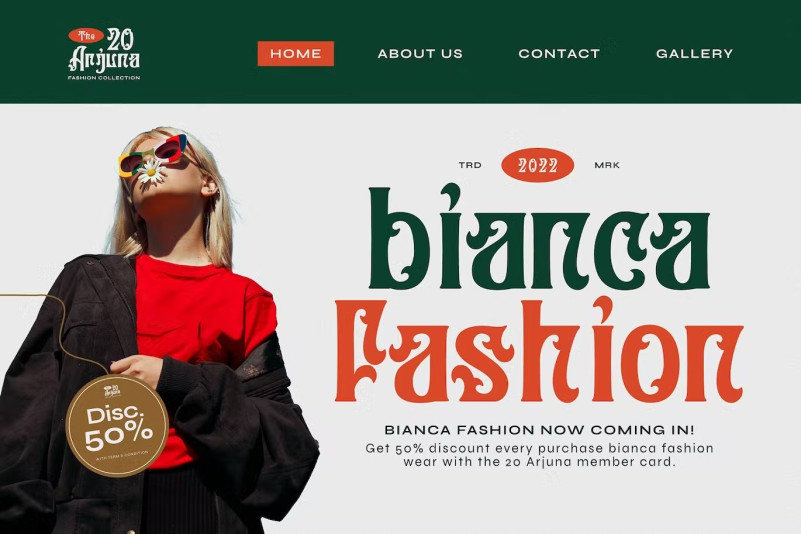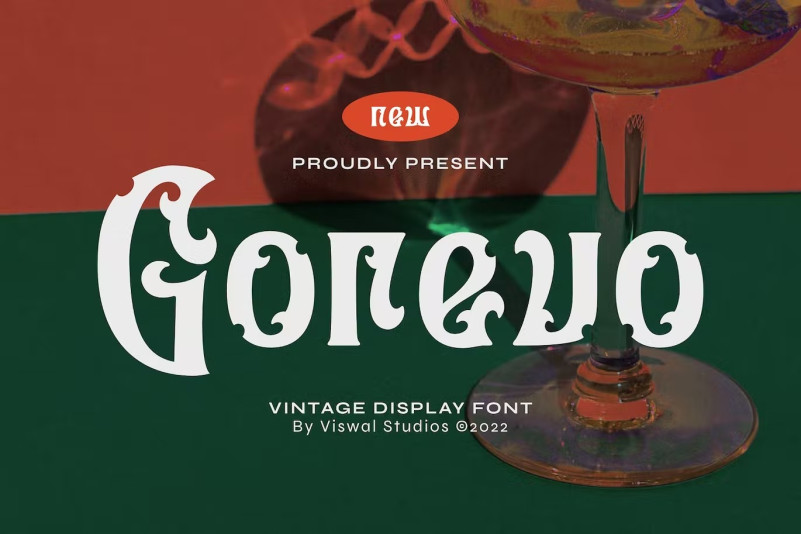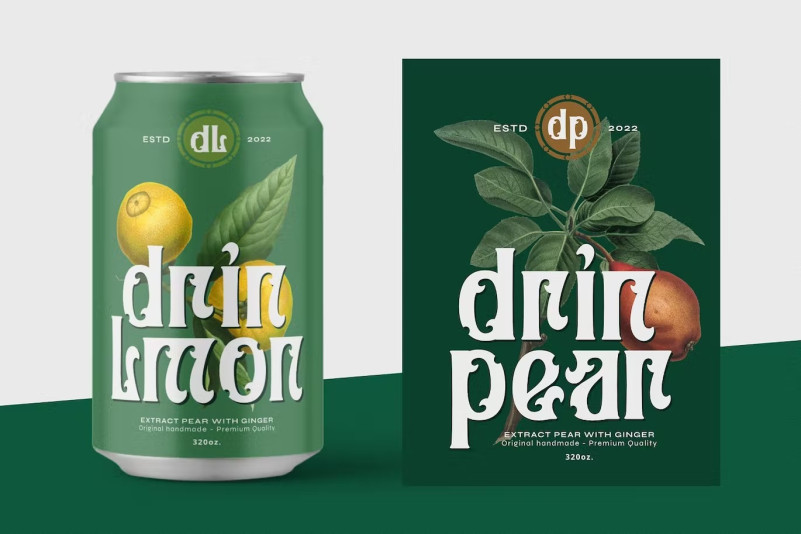
Gorevo – Vintage Font
Gorevo – Vintage font is suitable for fashion, badges, labels, logo, branding, magazines, posters etc. Our fonts feature upper and lower case, numbers and punctuation, multilingual support, and OpenType features. For amazing designs, you can mix them with other additional Fonts.